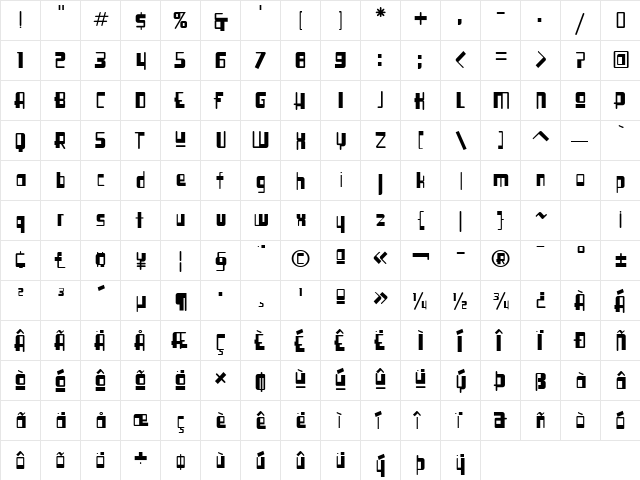
Syllogon ICG Hard Regular
Design Context for Syllogon ICG Hard Typeface
Syllogon ICG Hard is a composed and adaptable typeface that performs quietly and consistently across a wide range of design contexts.